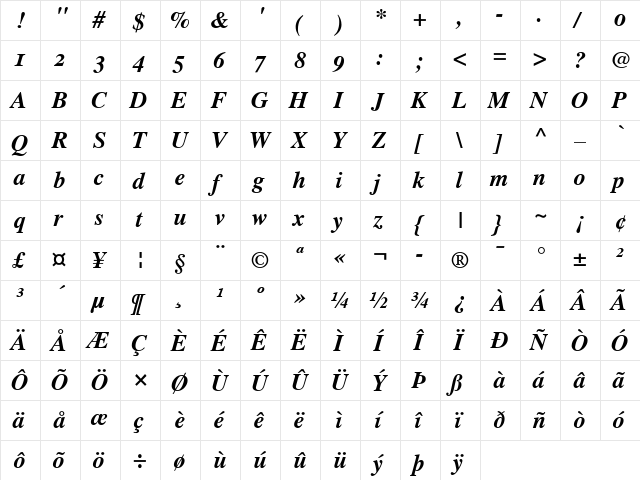
Times SC Bold Italic Font Preview
Design Context for Times SC Typeface
Times SC takes a measured approach to typography — its balanced proportions and neutral character make it a reliable workhorse for both digital and print work. Its italic angle brings a sense of urgency and motion to the letterforms. The heavy weight commands attention and anchors typographic hierarchies.
Pro Tip: Try Times SC for annotation and caption copy alongside an upright companion — the contrast in angle creates a dynamic but ordered typographic system.